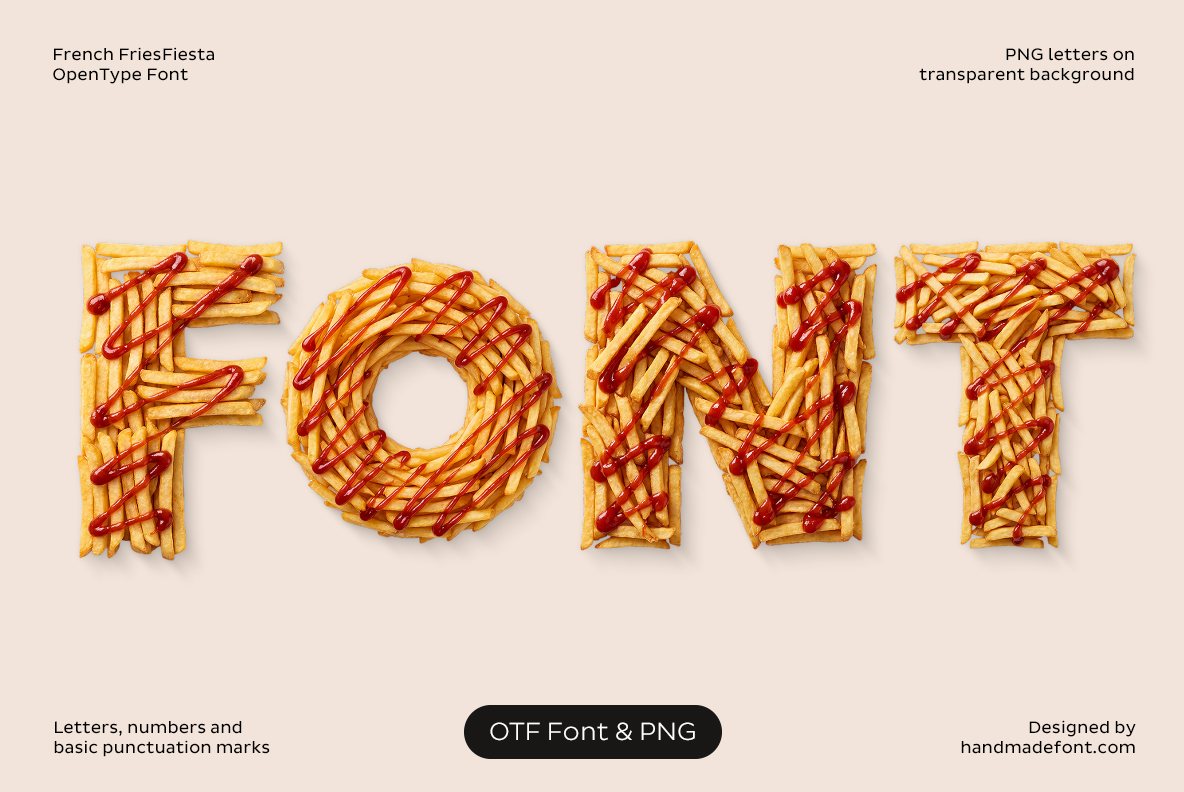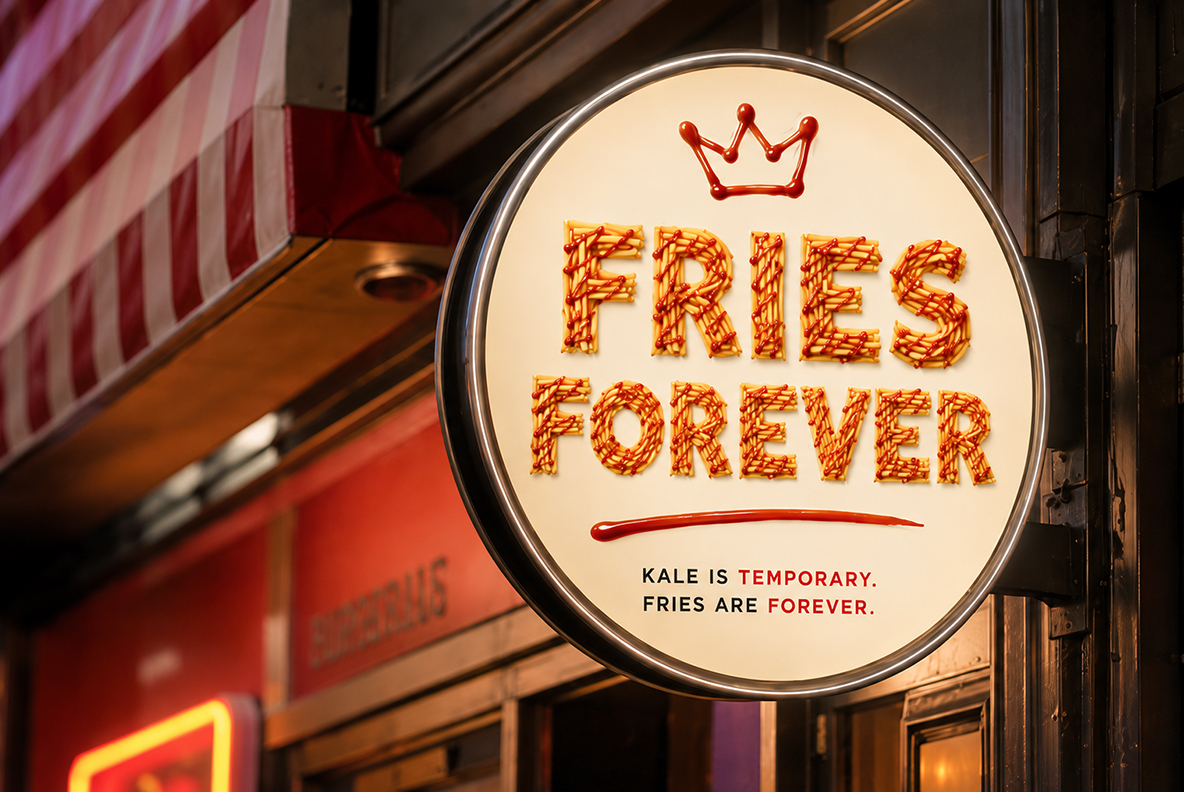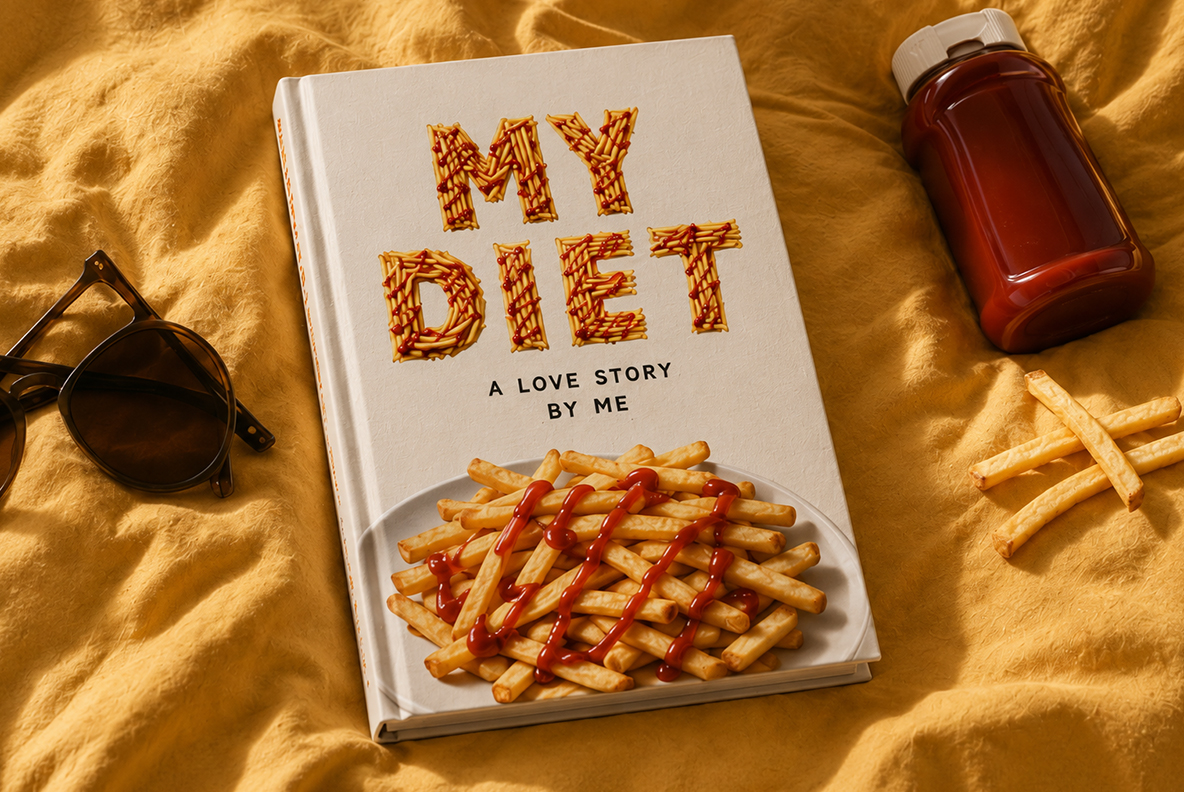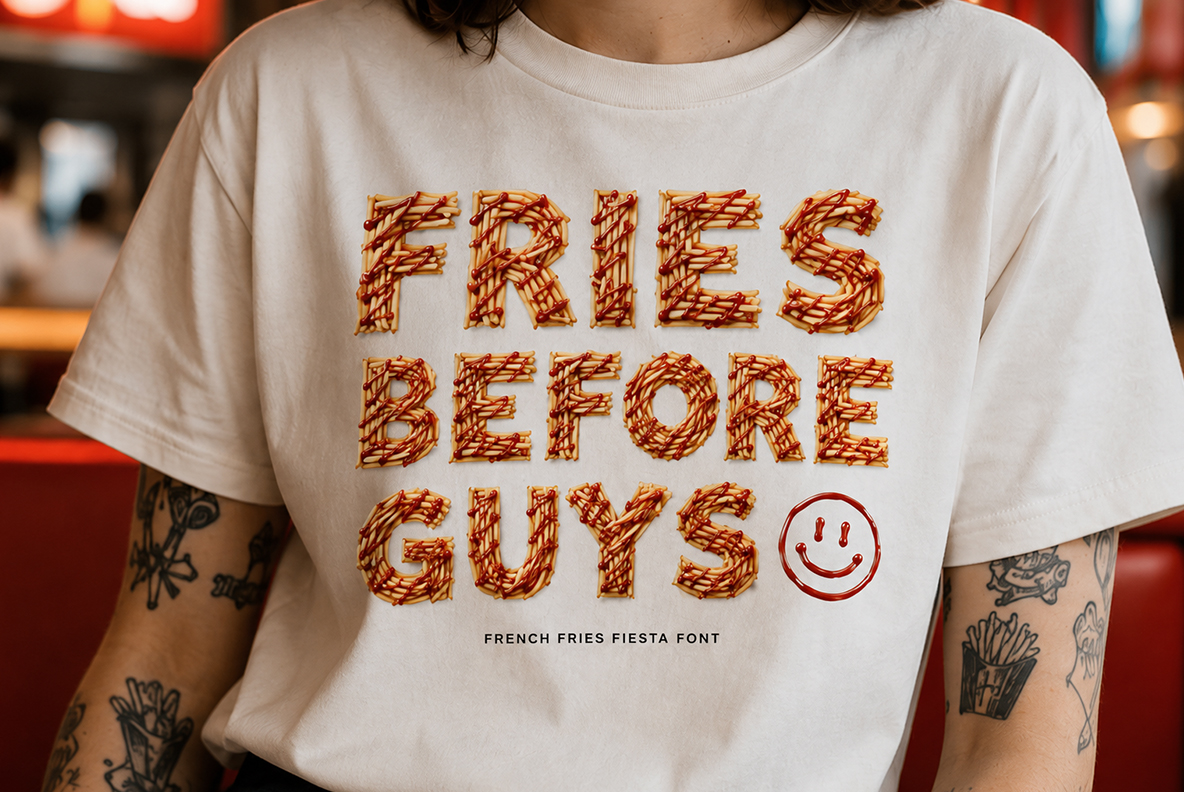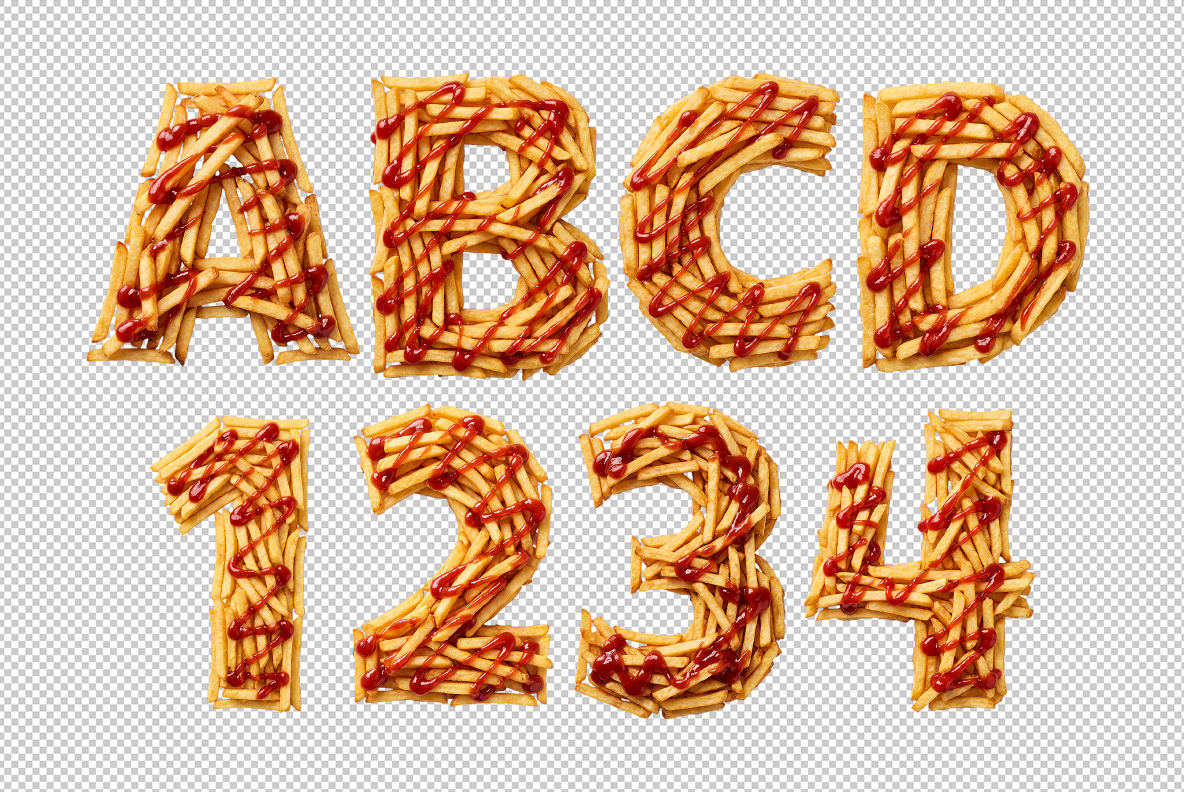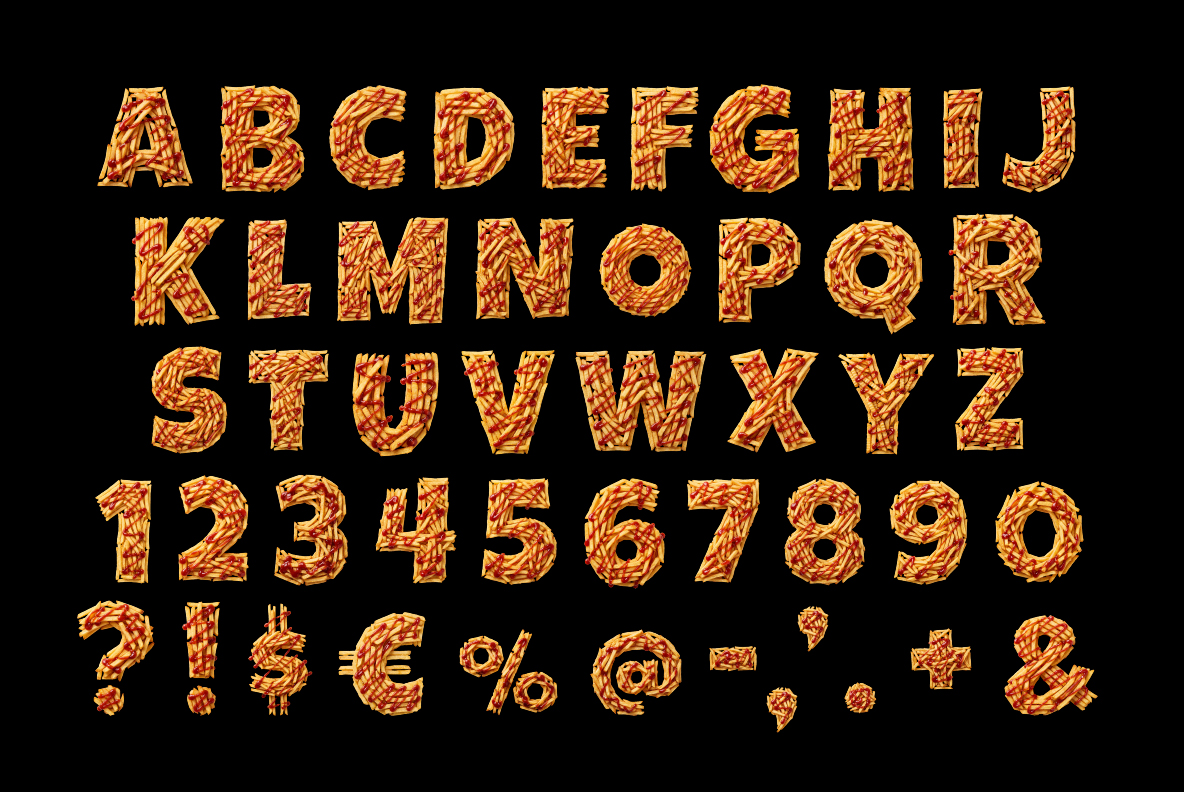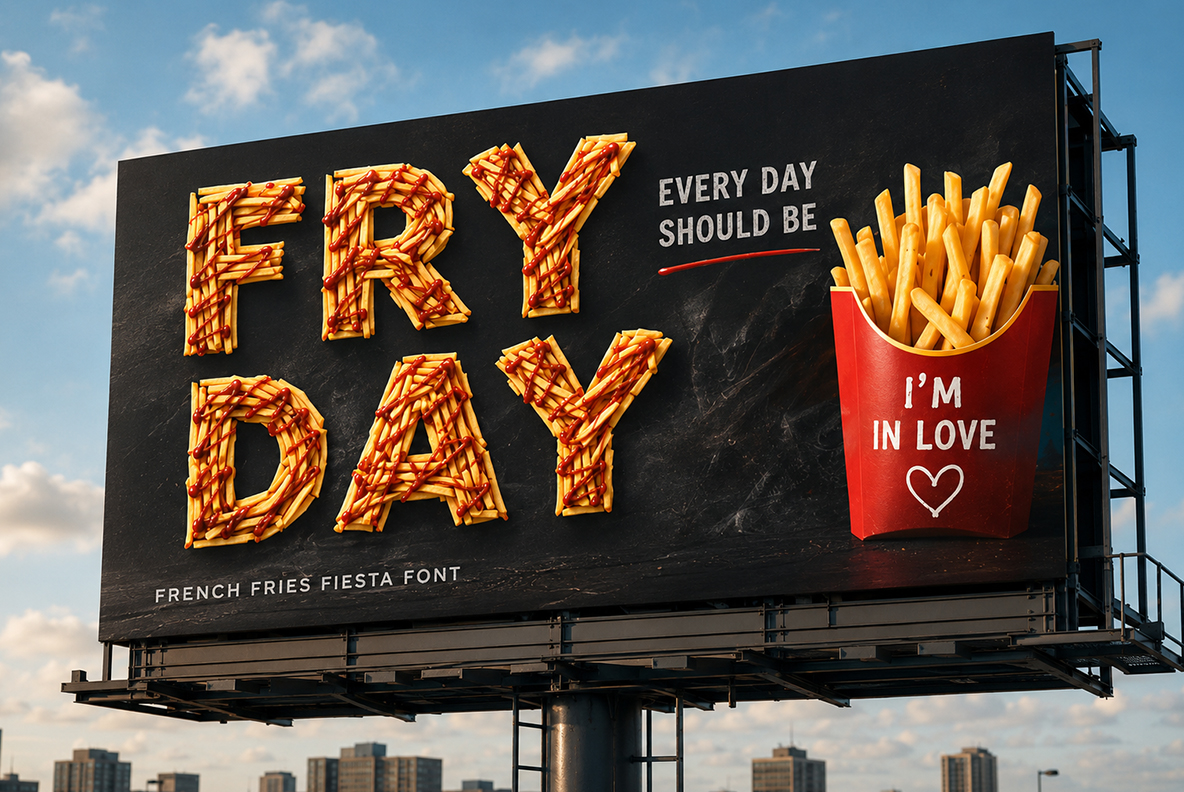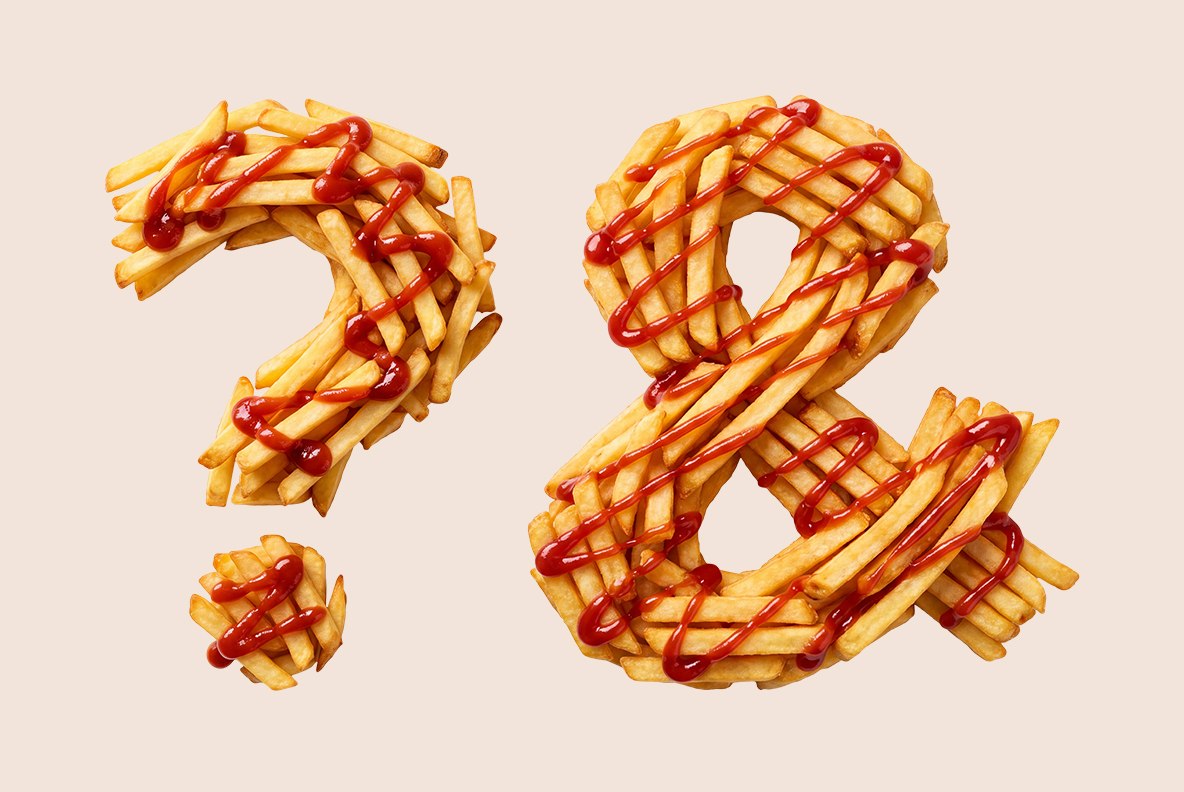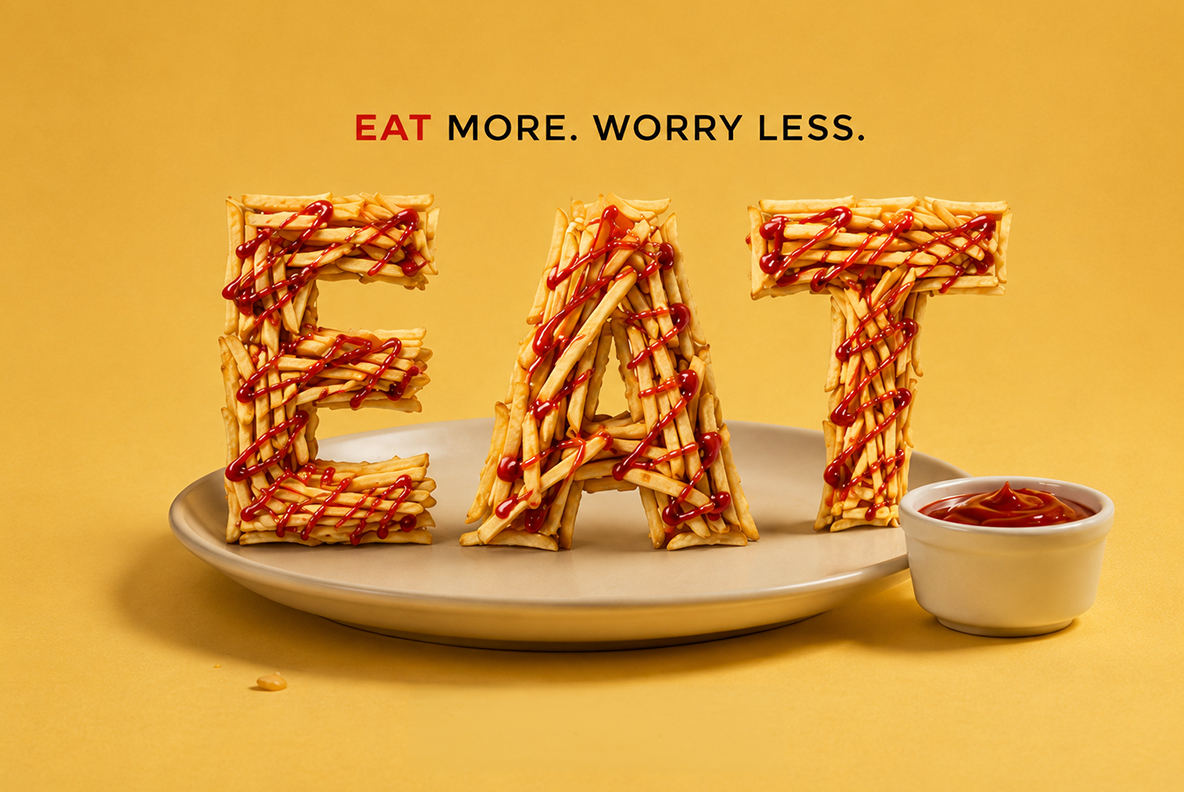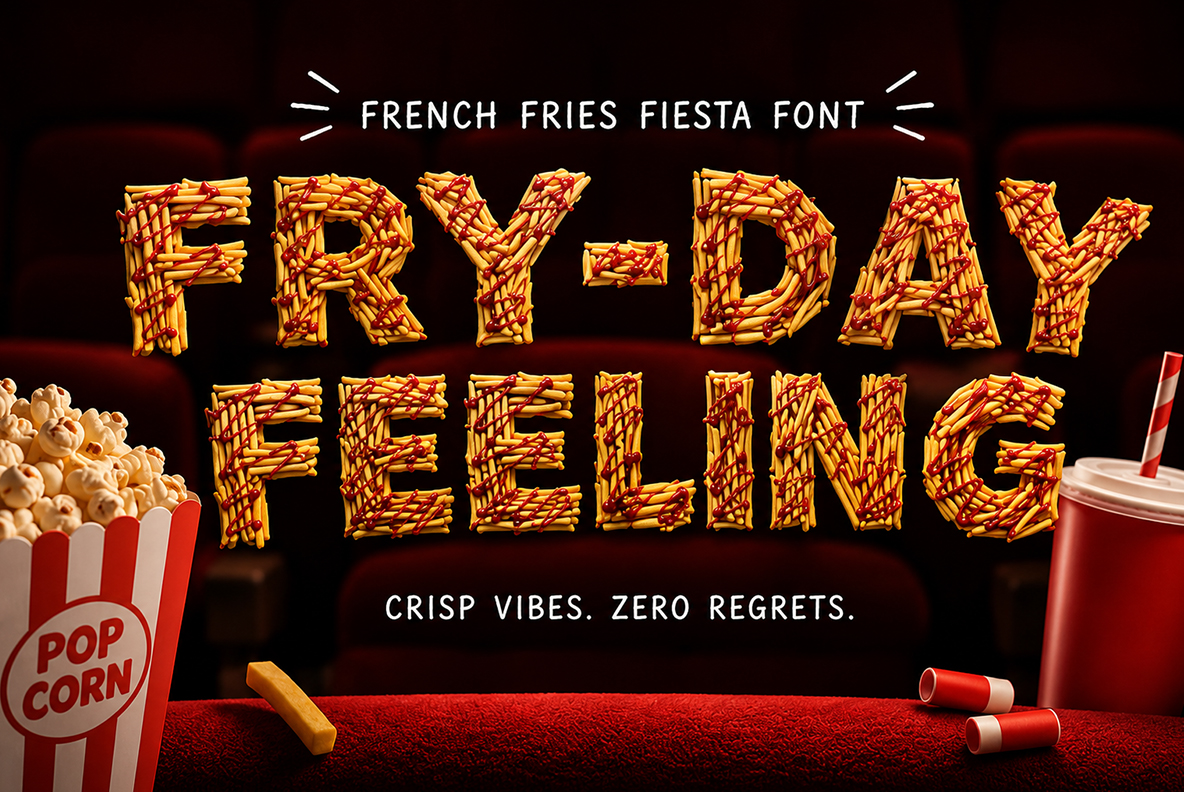
French Fries Fiesta Font. Feast your eyes on this!
Craving typography with a little more flavor? French Fries Fiesta Font brings crispy, ketchup-drizzled letters straight from real fried potatoes to your screen — a handmade OTF and transparent PNG set built for fast-food menus, quirky posters, and any design that could use a golden, greasy jolt of personality.
Sizzle Your Designs with French Fries Fiesta Font
Bland typography leaves your designs starving for personality. French Fries Fiesta Font solves that by building every letter from real, physically arranged fries and a glossy drizzle of ketchup, fresh out of the fryer. The result reads as genuinely appetizing rather than digitally faked — golden, crispy, and impossible to scroll past. If you like typography with this kind of edible personality, the Food Fonts collection has plenty more.
Why Choose This Crispy Fast Food Alphabet?
Every character was handcrafted from real food, photographed under studio lighting to capture the natural texture and grease of a potato without artificial retouching. The set doesn’t stop at an installable OTF — it also includes high-resolution PNG letters on a transparent background, so you can scale, layer, and drop individual characters into a layout without fighting a background. The deep golden tone and bright red ketchup accents give the alphabet strong, ready-made contrast.
Animated French Fries Fiesta Font spelling the letter F in fries and ketchup
Creative Ways to Serve the French Fries Fiesta Font
This typeface works best when it’s allowed to be a little absurd: a fashion-meets-fast-food advertising editorial, a street food festival flyer, a quirky streetwear graphic, or a corporate deck that wants to poke fun at its own seriousness. It’s playful enough to carry humor on its own, so it suits headlines and hero text more than long-form copy — anywhere a design wants a jolt of greasy, golden personality instead of a straight typographic voice.
French Fries Fiesta Font spelling FONT in crispy fries drizzled with ketchup
French Fries Fiesta Font full alphabet, numbers, and punctuation in fries and ketchup
French Fries Fiesta Font spelling FRY DAY on an outdoor billboard mockup
French Fries Fiesta Font question mark and ampersand symbols in fries and ketchup
French Fries Fiesta Font spelling EAT on a plate beside a ketchup cup
French Fries Fiesta Font spelling FRY-DAY FEELING on a cinema-themed poster
French Fries Fiesta Font spelling WOW above a surprised cat
French Fries Fiesta Font spelling BORN TO FRY beside a caped fry character on a motorcycle
French Fries Fiesta Font spelling CRISP IS MY CARDIO in a magazine spread mockup
French Fries Fiesta Font spelling FRIES FOREVER on a round storefront sign mockup
French Fries Fiesta Font spelling MY DIET on a book cover mockup
French Fries Fiesta Font spelling FRIES BEFORE GUYS on a printed t-shirt mockup
French Fries Fiesta Font PNG letters A, B, C, D and numbers 1, 2, 3, 4 on a transparent background